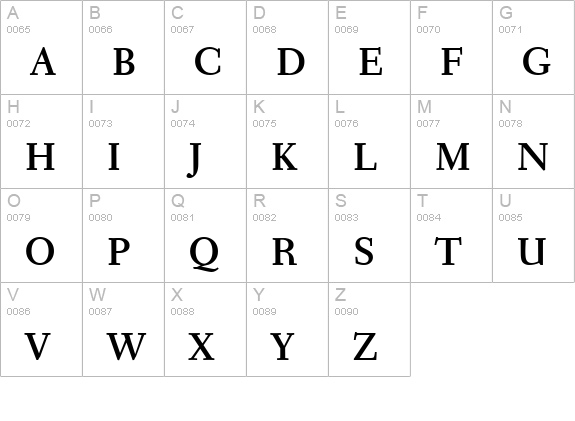
Transit Bold is a strong, high-contrast variant in the Transit typeface family \xE2\x80\x94 well suited to headlines, attention-grabbing titles, and strong calls-to-action.
Transit Bold font, a striking and captivating typeface that effortlessly commands attention. With its strong and bold letterforms, this font exudes confidence and power, making it the perfect choice for headlines, titles, and branding projects. Designed with precision and attention to detail, Transit Bold font offers a harmonious balance between sharp angles and smooth curves, resulting in a visually pleasing and highly legible typeface. Its bold and assertive nature adds a touch of modernity and sophistication to any design, making it versatile and adaptable for a wide range of creative applications. One of the most enticing features of Transit Bold font is that it is freely available to download at FontsMarket.com. This means that designers and creatives can effortlessly access this remarkable font at no cost, making it an invaluable resource for both personal and commercial projects. Whether you're working on a logo design, packaging, posters, or any other creative endeavor, Transit Bold font will undoubtedly elevate your work to new heights. Its strong presence and striking aesthetic will leave a lasting impression on your audience, ensuring that your message is delivered with impact and style. So why wait? Download Transit Bold font today, exclusively at FontsMarket.com, and unlock the potential of this remarkable typeface. Embrace its boldness, embrace its power, and let your creativity soar to new heights.